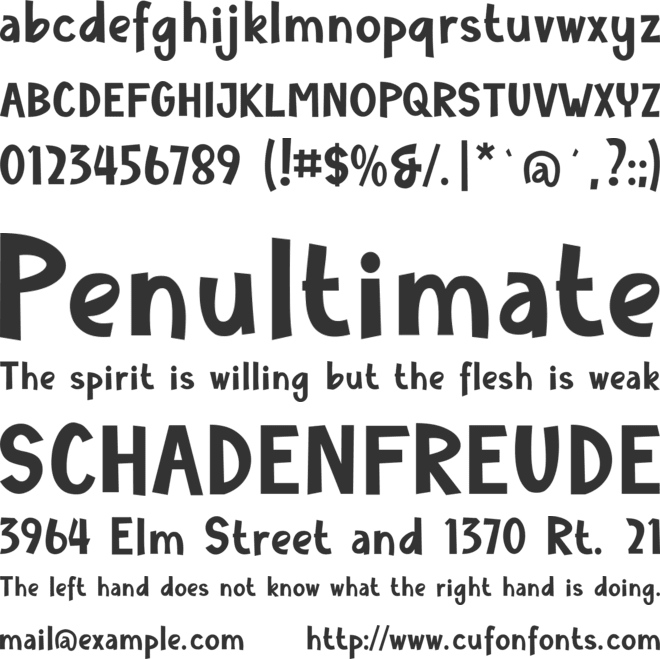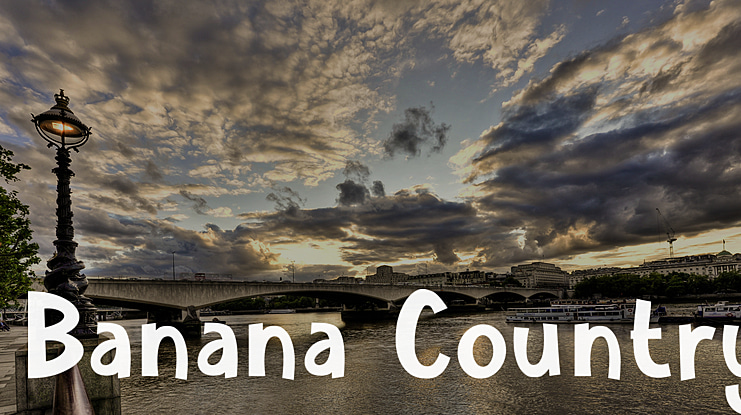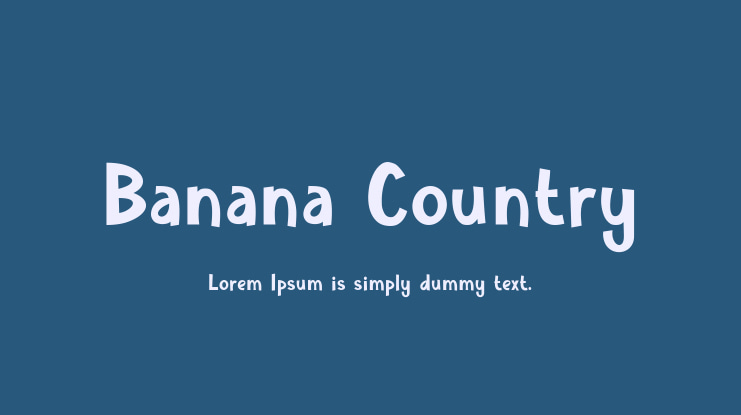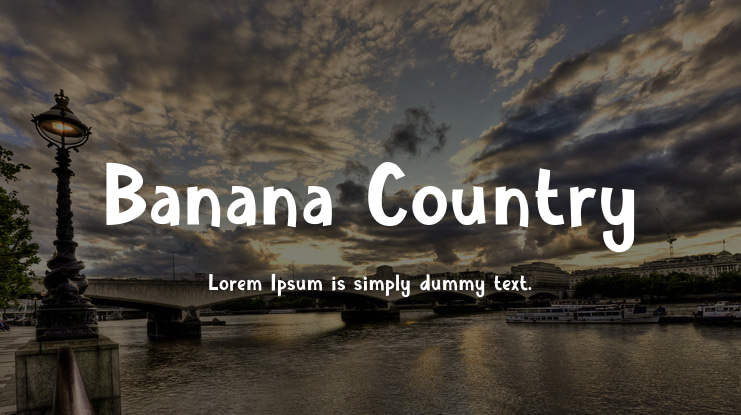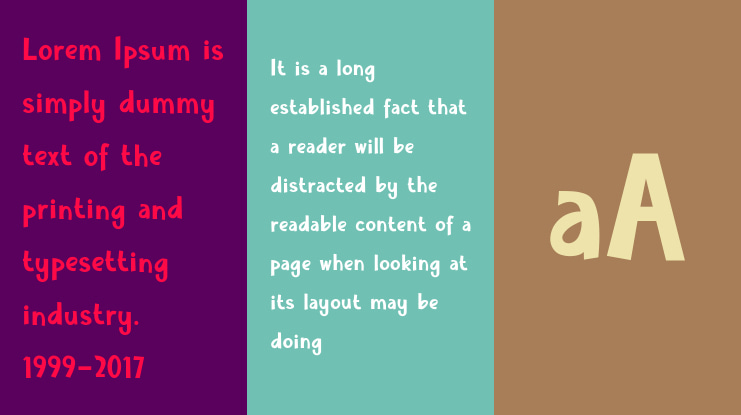
Banana Country Font
Banana Country is a simple, fun, and friendly display font. Whether you use it for cartoon-related designs, quotes, or just any creation that requires a lovely touch, this font will be an amazing choice.